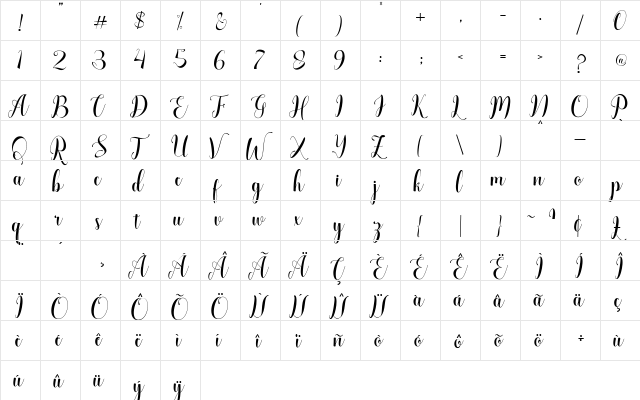
Chaster Script Regular
| Foundry | Chaster_rhydan studio |
| Designer | Erdane |
Design Context for Chaster Script Typeface
Chaster Script flows with the natural rhythm of handwritten lettering, making it ideal for designs that call for warmth and personal expression.
Font Pairing: Combine Chaster Script with a simple geometric sans for maximum contrast — the tension between flowing curves and clean structure is a classic typographic pairing.
Pro Tip: Pair Chaster Script with a clean sans-serif for supporting text. The contrast between fluid script and geometric structure creates an elegant typographic hierarchy.